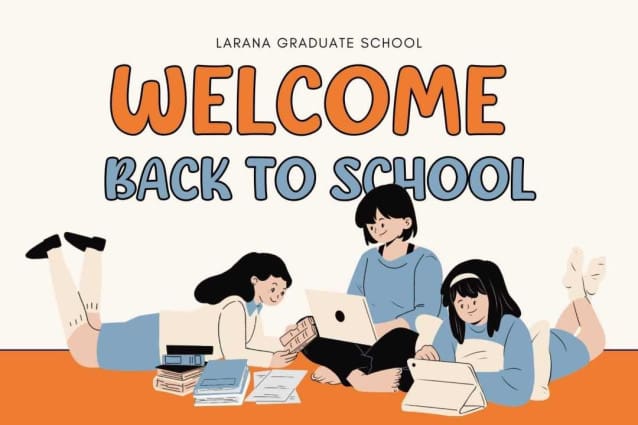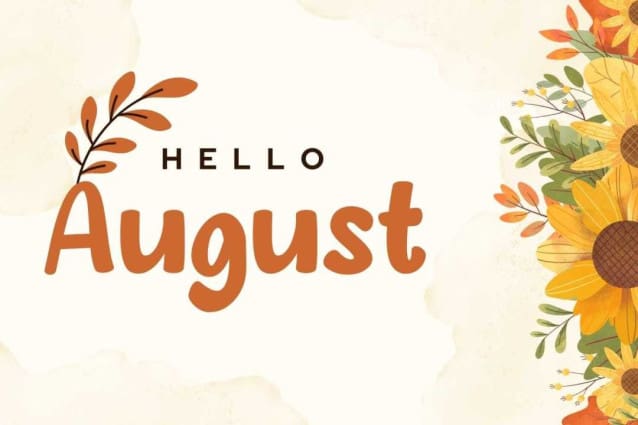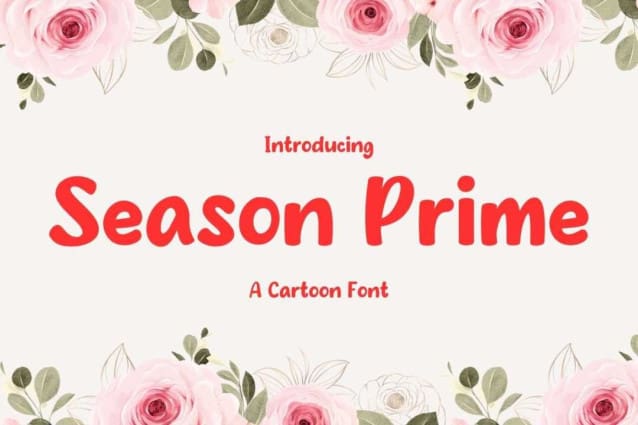
Season Prime Font
Season Prime Font is a chunky, comic, and cartoon display font. With its neat and joyful personality, this font will enhance any project you wish to create!